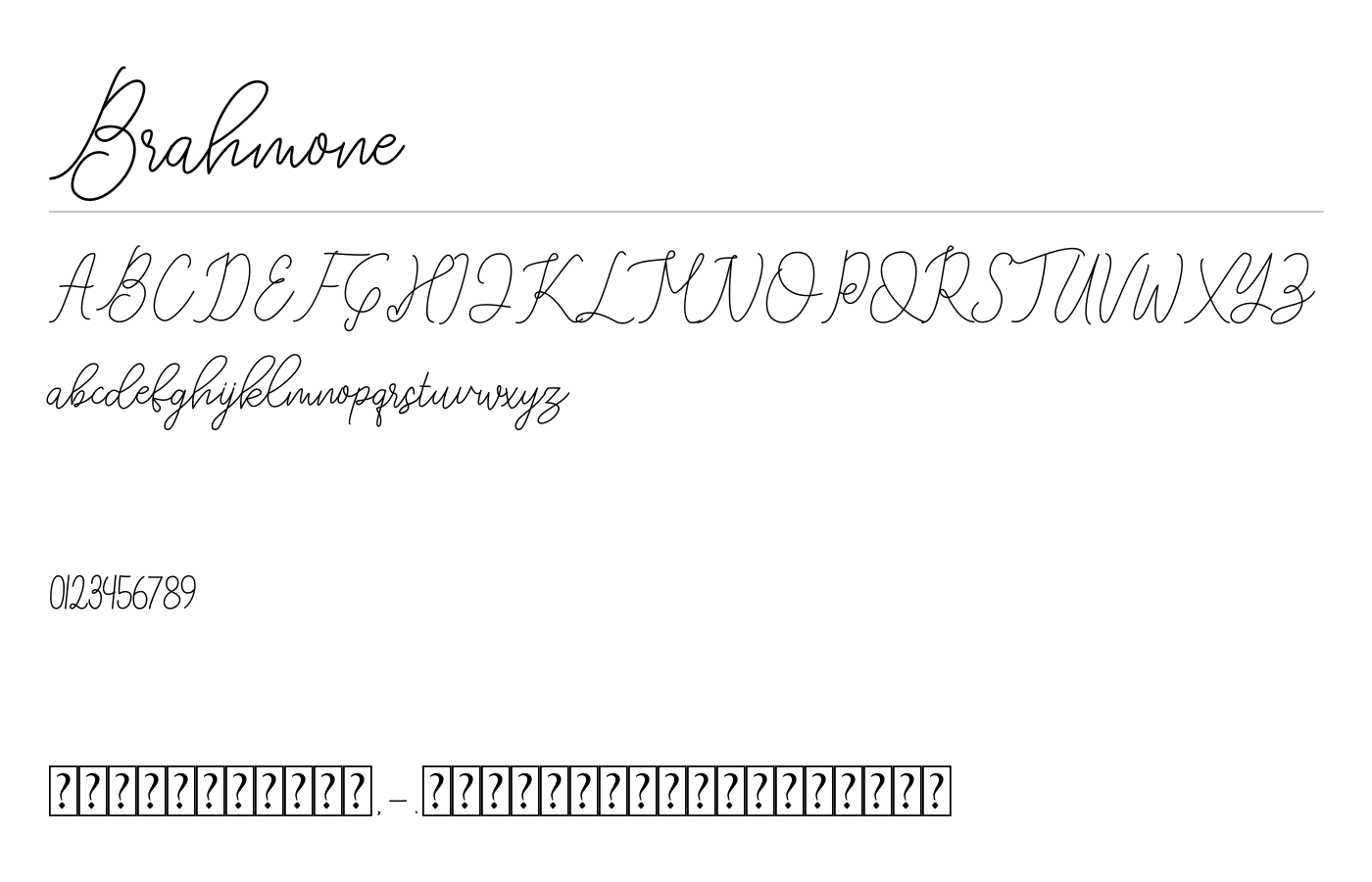
Brahmone is a delicate, elegant script font with a light, airy feel and graceful, flowing strokes. Its narrow, handwritten style offers a refined and personal touch, making it ideal for invitations, branding, and creative projects that require a sophisticated yet approachable look. This font works best in display settings where beauty and subtlety are key to conveying a stylish and intimate mood.